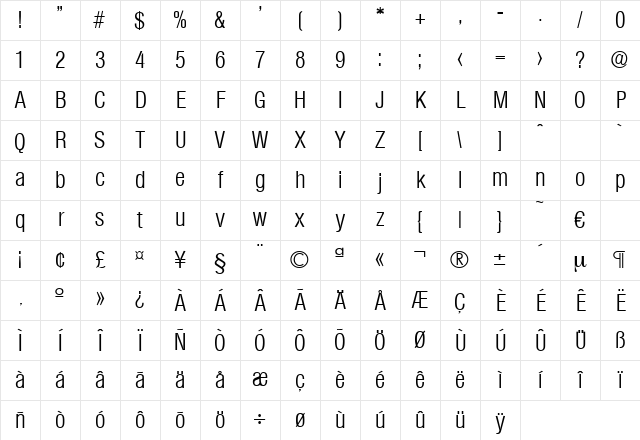
Olympia-LightCond Regular Free Font
Olympia-LightCond Regular
Design Context for Olympia-LightCond
Olympia-LightCond is a composed and adaptable typeface that performs quietly and consistently across a wide range of design contexts. Its slender proportions lend an understated elegance to any composition. Its narrow stance lets it pack a punch even in space-constrained designs.